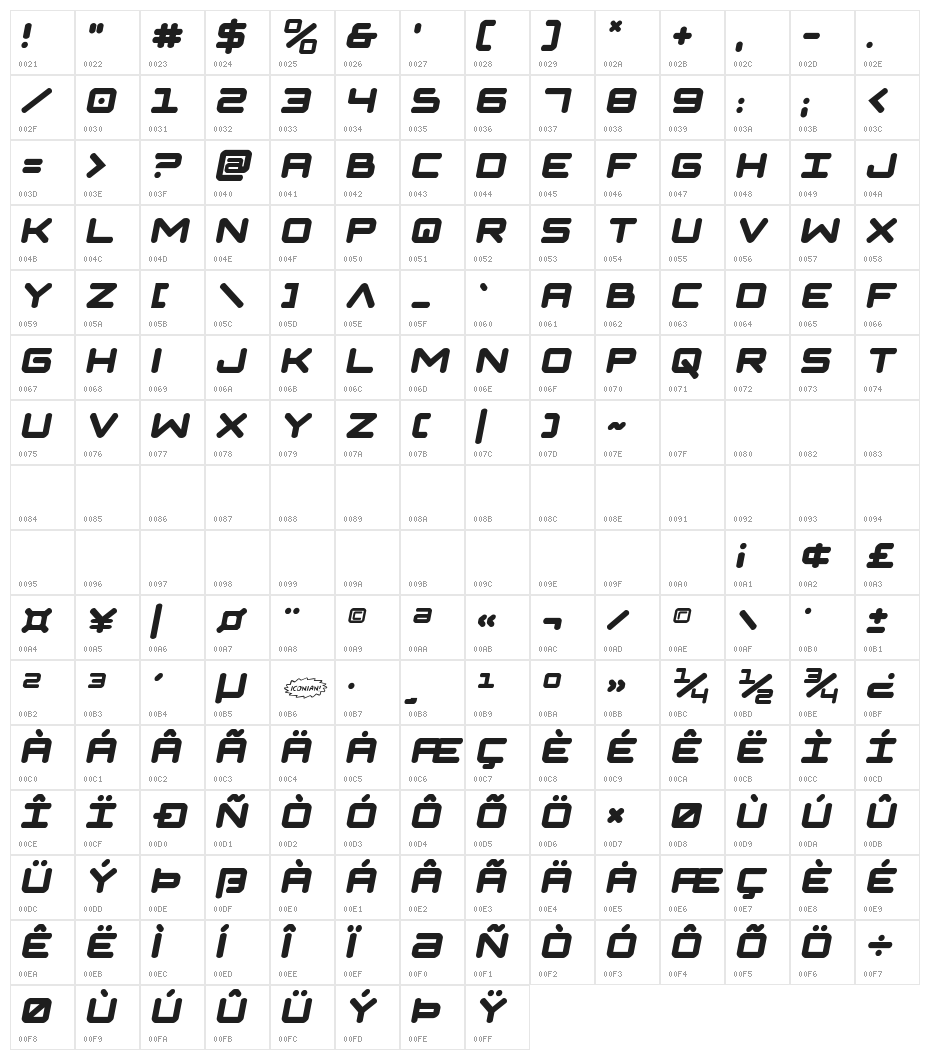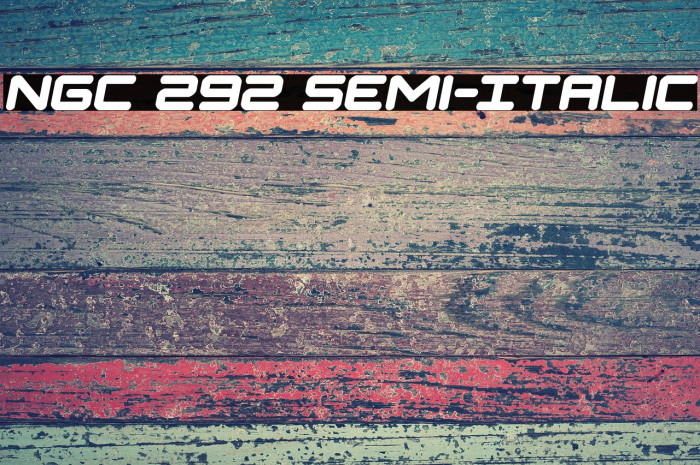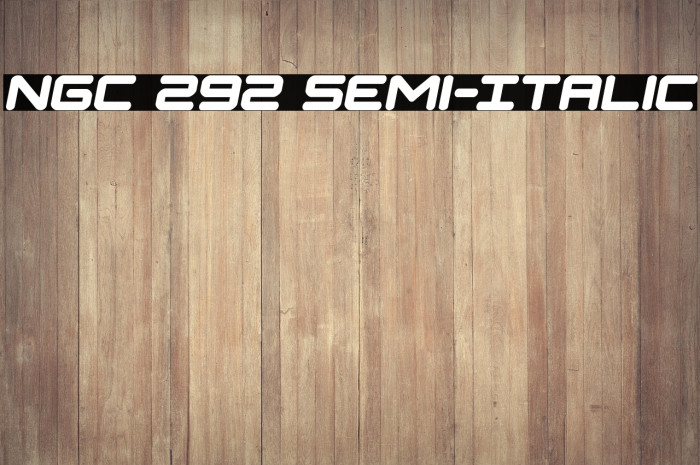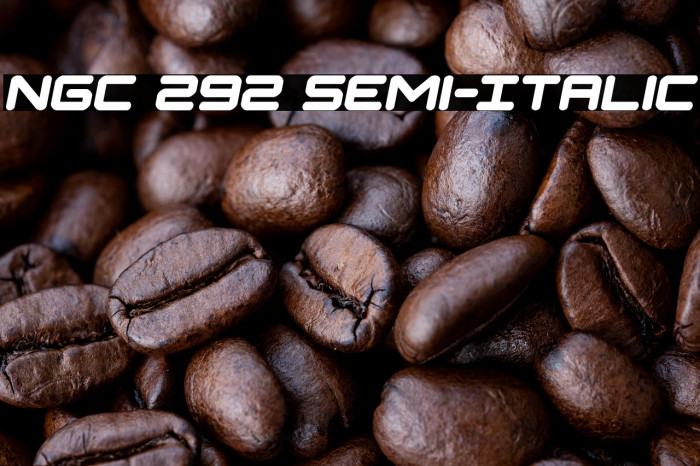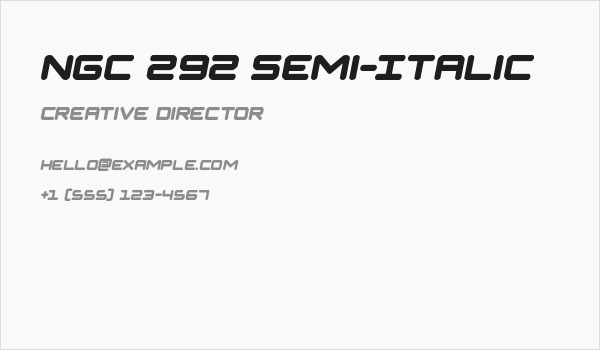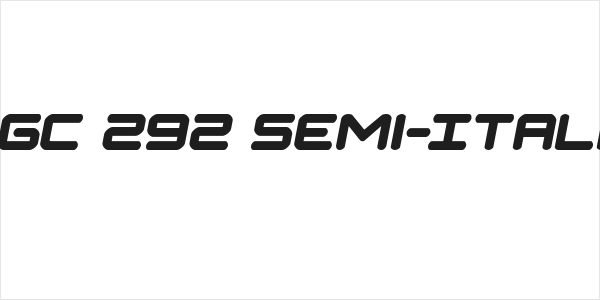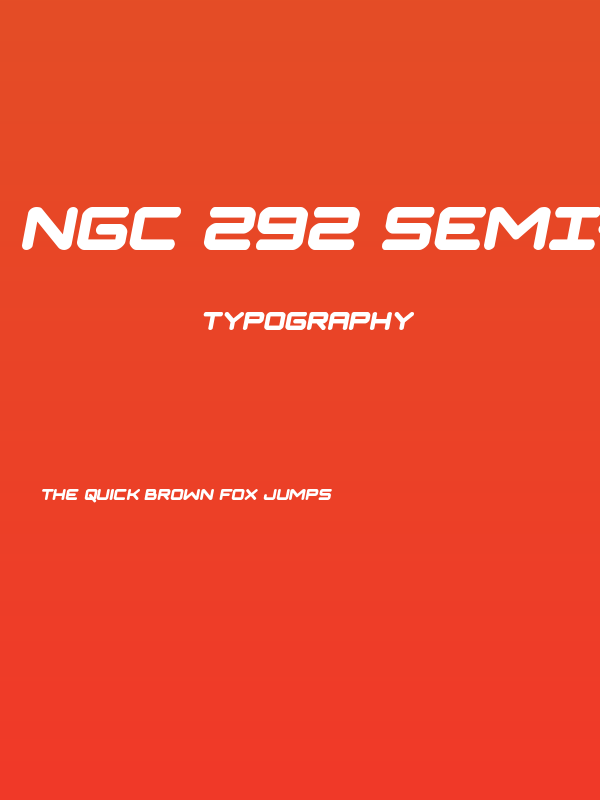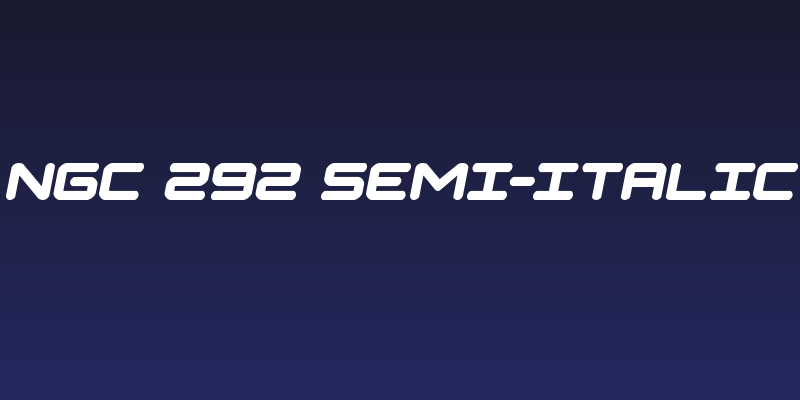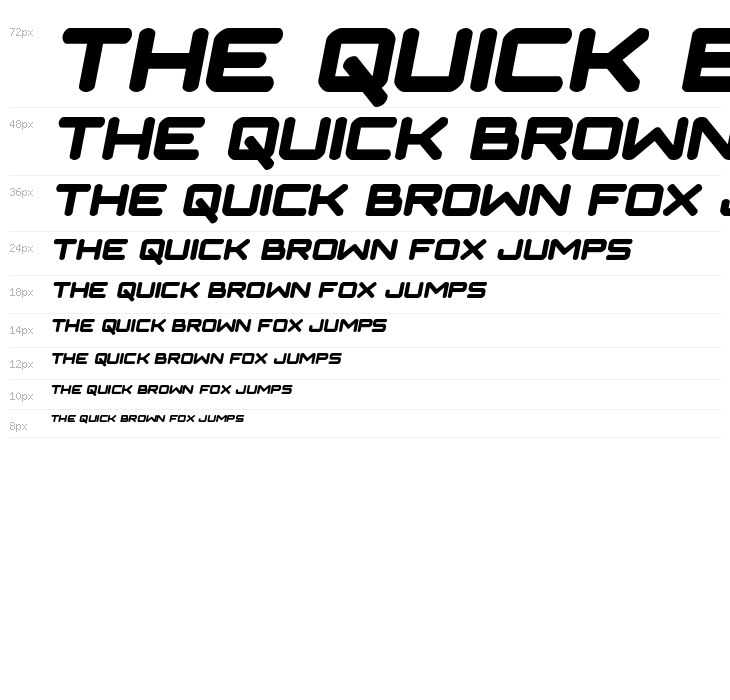
NGC 292 Semi-Italic Font
NGC 292 Semi-Italic Description
This font features a modern, semi-italic style with a sleek and streamlined appearance. The characters exhibit a slight forward slant, giving them a dynamic and energetic feel. The strokes are consistent in weight, providing a uniform look across all characters. The rounded edges and smooth curves add a touch of softness, balancing the overall boldness of the design. The font maintains a medium contrast between thick and thin strokes, ensuring readability while retaining its stylish flair. It is well-suited for projects that require a contemporary and futuristic aesthetic.
| Use Case | Logos, Headlines, Digital interfaces |
| Proposed Projects | Ideal for tech branding, sports team logos, modern advertising, and digital interfaces. |